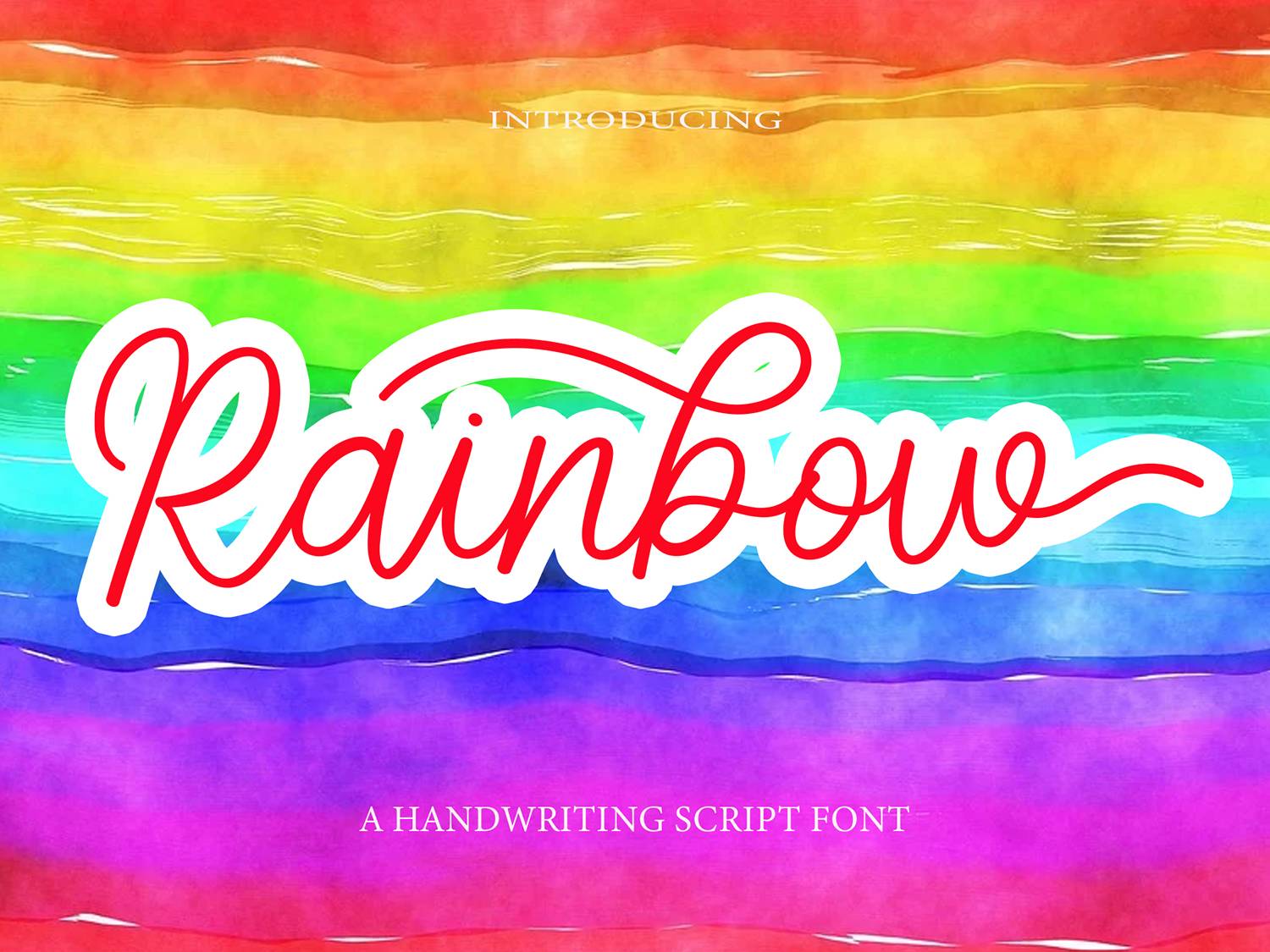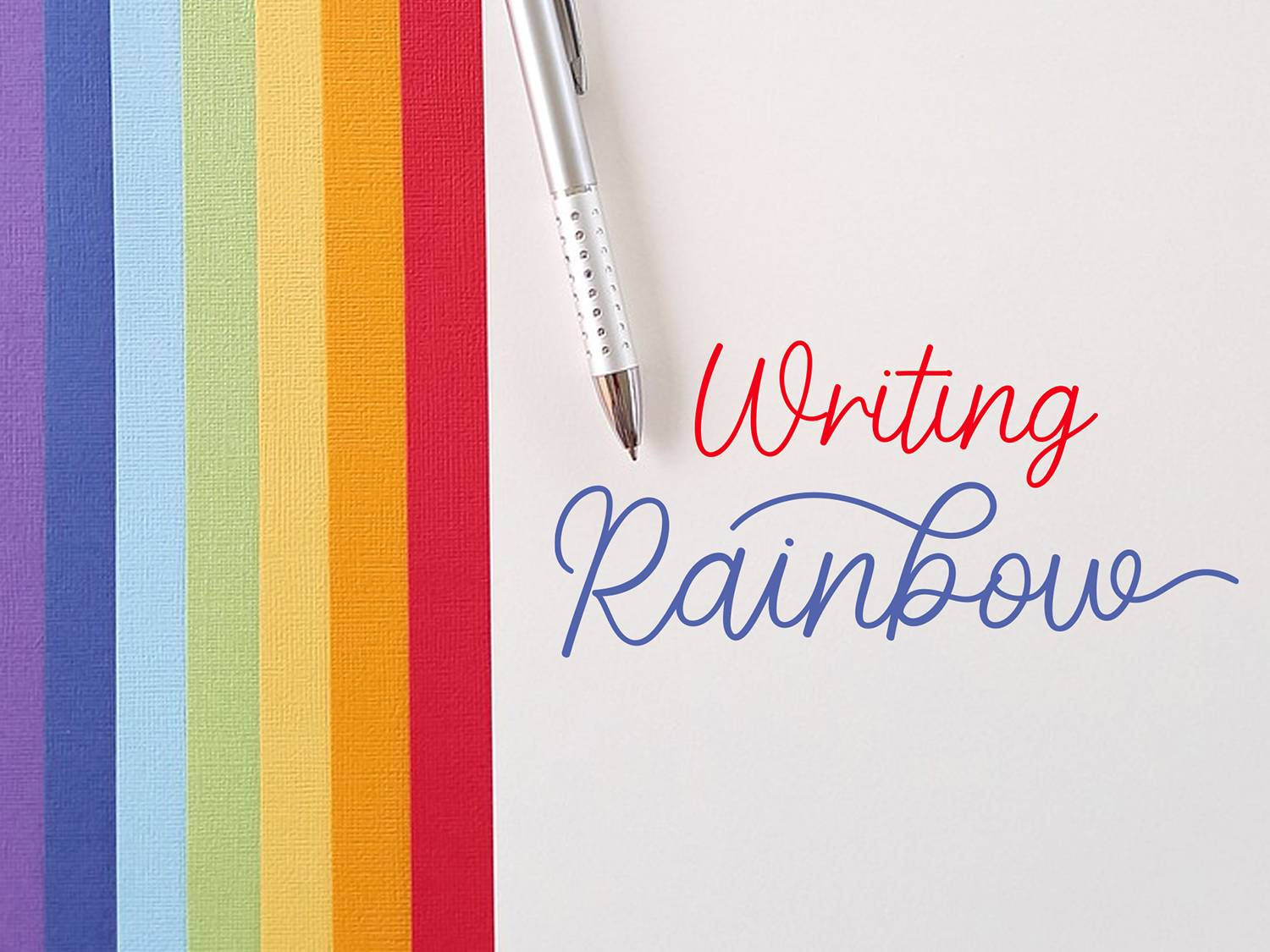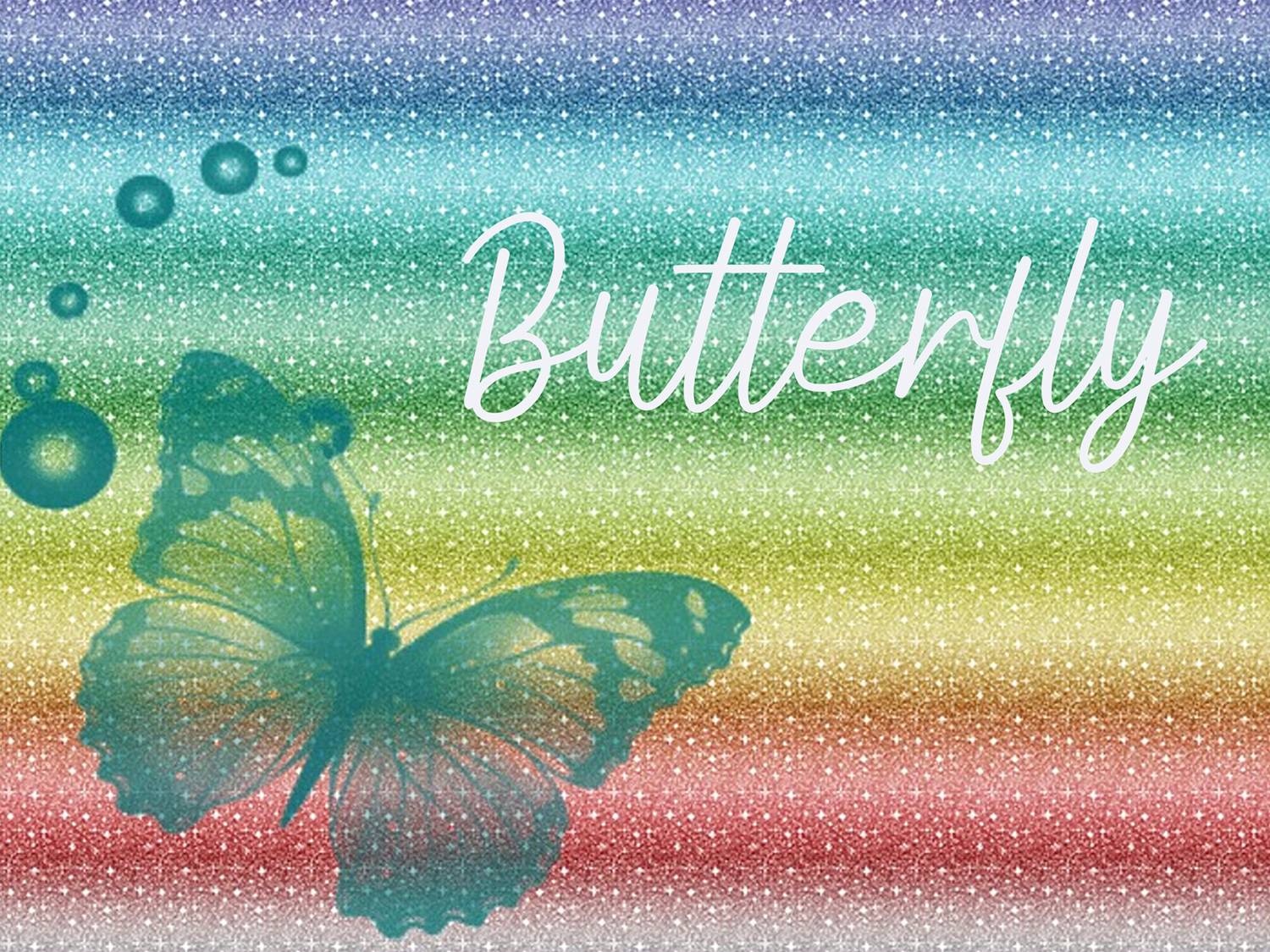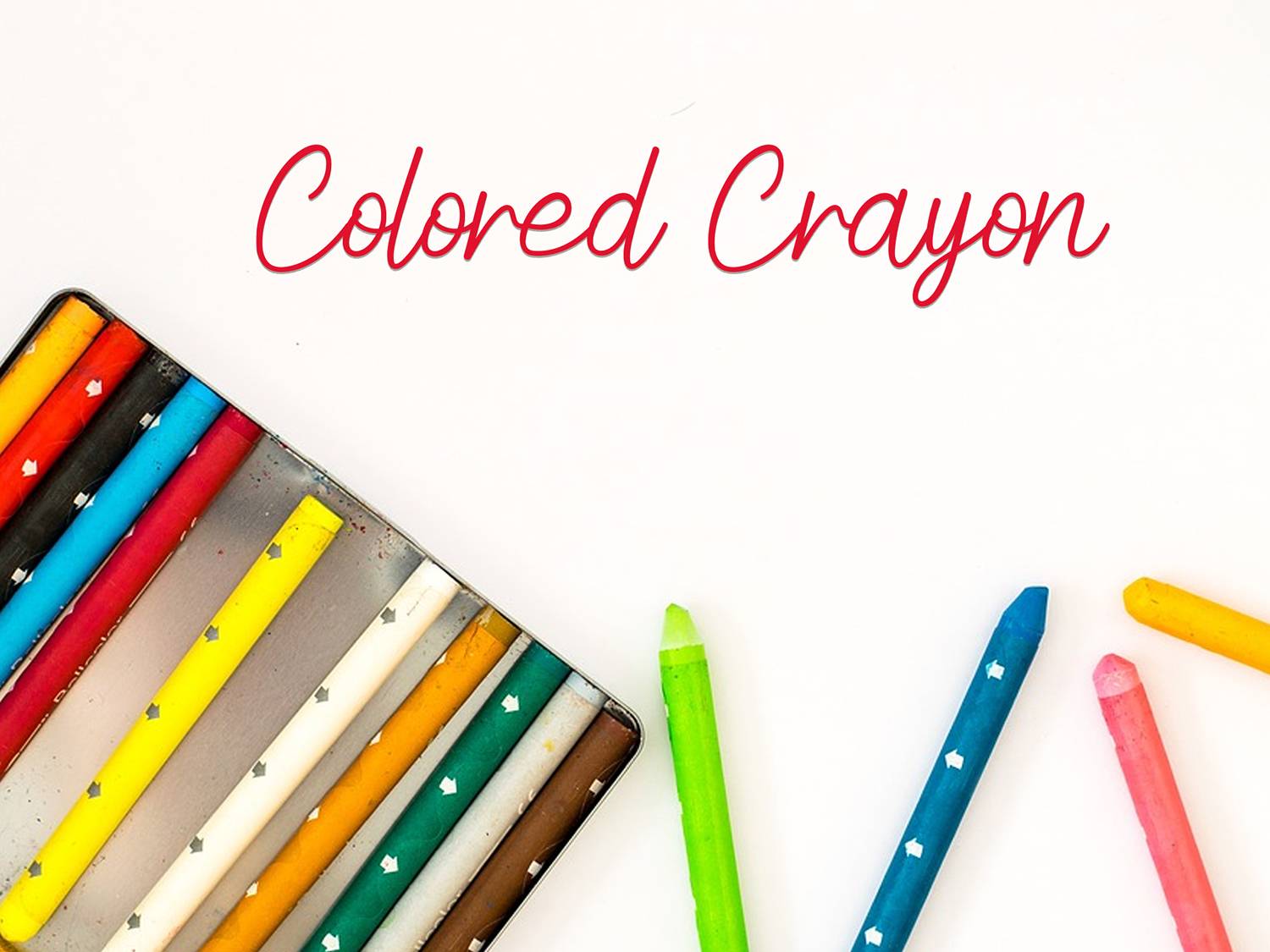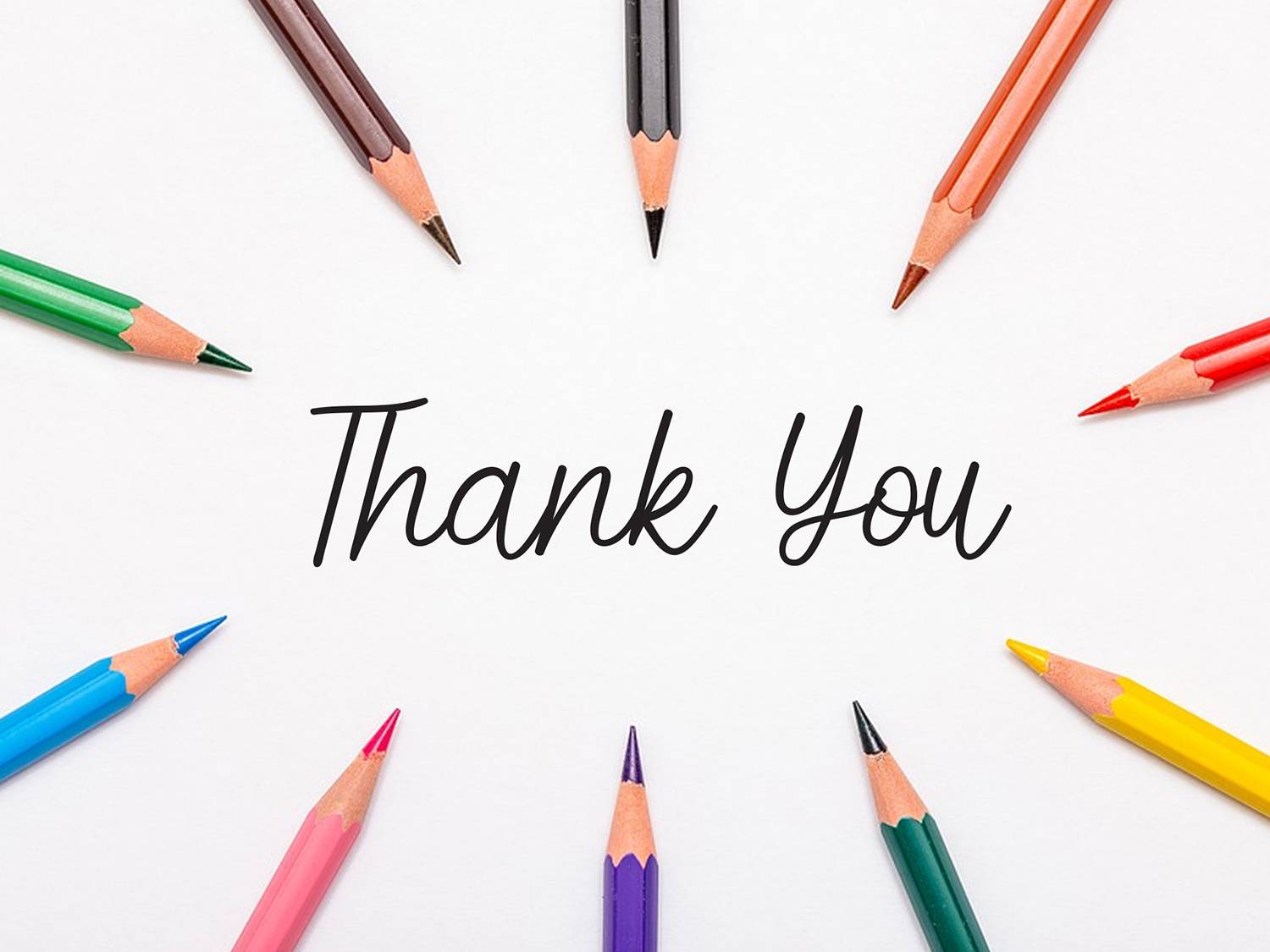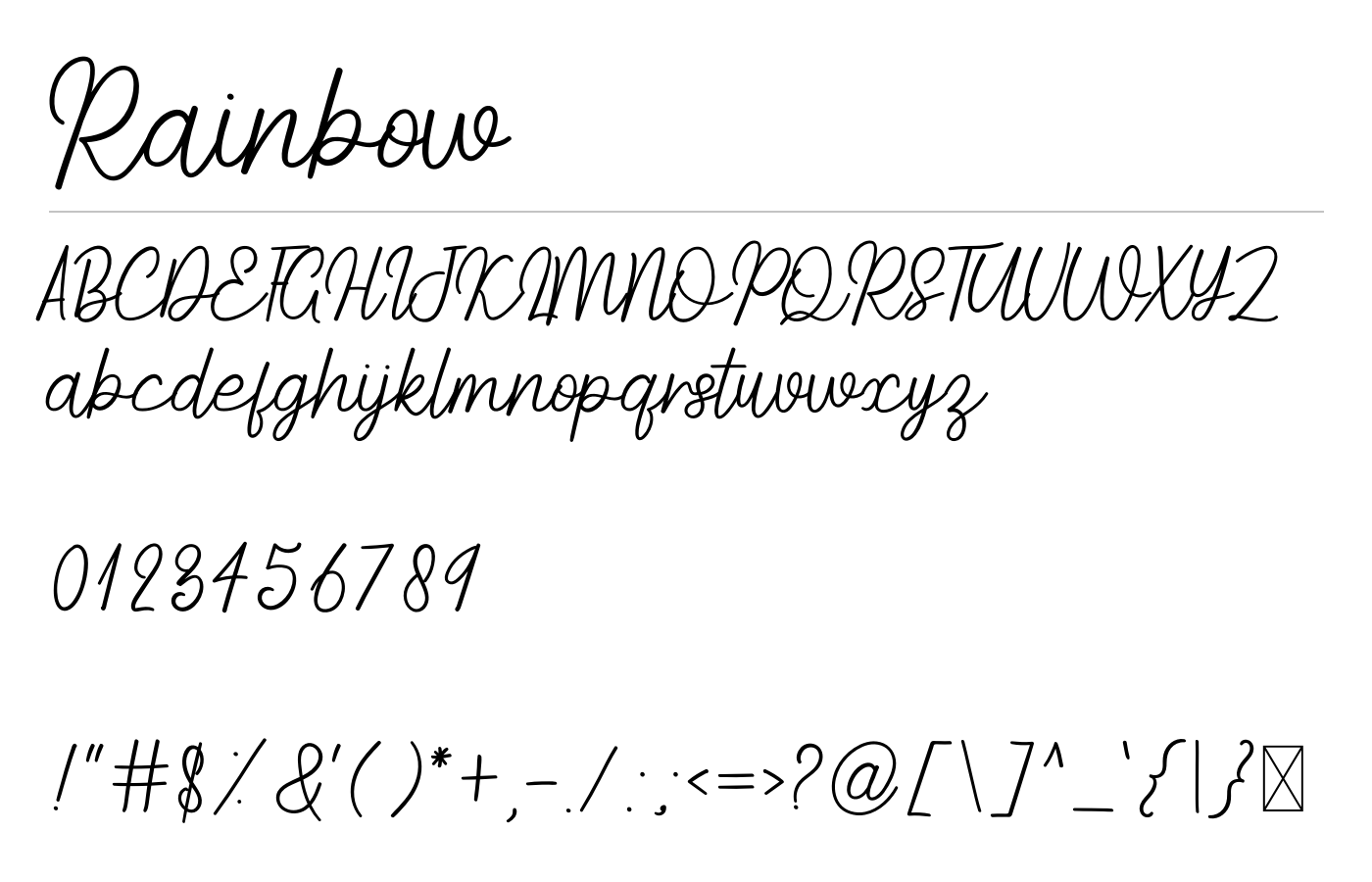
Rainbow Font is a delicate, modern script typeface with a light weight and graceful, flowing lines that create an elegant yet approachable feel. Its tall x-height and slender strokes, combined with smooth curves and refined letterforms, make it ideal for stylish branding, invitations, and feminine design projects where a personal, hand-written touch is desired. This font shines in headlines and logo design that require a soft, sophisticated personality without sacrificing readability.
Rainbow Font
About Rainbow Font